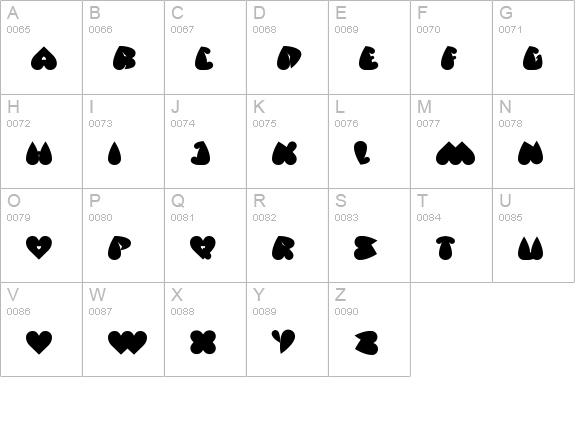
Introducing the perfect font to express your love and heartfelt emotions this Valentine's Day – the Valentine's Day Font! This enchanting typeface is designed specifically to capture the essence of romance, passion, and affection, making it the ideal choice for all your Valentine's Day projects. With its elegant and playful strokes, the Valentine's Day Font adds a touch of charm and whimsy to any design. Whether you're creating love letters, greeting cards, invitations, or even digital artwork, this font will effortlessly convey the spirit of love in every character. But what makes the Valentine's Day Font even more special is that it's completely free! That's right, you can download this stunning font without spending a single penny. Thanks to FontsMarket.com, a leading online font resource, lovebirds, designers, and creatives alike can freely access this font and bring their Valentine's Day creations to life. Imagine the smile on your loved one's face when they see a heartfelt message written in this beautiful font. The Valentine's Day Font is designed to evoke feelings of warmth, tenderness, and affection, making it the perfect companion for expressing your deepest emotions this Valentine's Day. Whether you're designing a romantic dinner menu, creating personalized gift tags, or crafting a heartfelt love note, the Valentine's Day Font will add a touch of elegance and romance to your work. Its versatility allows you to experiment with various styles, sizes, and colors, ensuring that your designs truly stand out. So why wait? Unlock the magic of the Valentine's Day Font and let your creativity soar this Valentine's Day. Download this enchanting font for free at FontsMarket.com and infuse your designs with love, passion, and the power of typography. Get ready to captivate hearts and create unforgettable moments with the Valentine's Day Font – the ultimate symbol of romance.